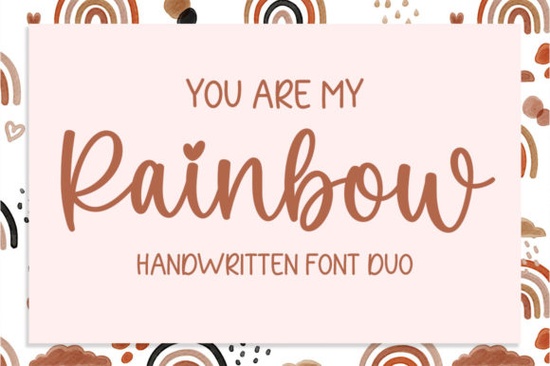
If you’ve been searching for a pair of fonts that feel playful but still polished, the You Are My Rainbow set might be exactly what your next project needs. Designed to work together or on their own, these two fonts bring a cheerful, handcrafted vibe that’s perfect for greeting cards, nursery decor, t-shirts, or even wedding invitations with a soft, personal touch.
What makes this duo special is how naturally they complement each other. One font leans into gentle script lettering with smooth curves, while the other offers a slightly bolder companion ideal for pairing headlines with body text or layering in SVG designs. You don’t need to be a pro designer to make them look great; their built-in harmony does most of the work for you.
Who should use these fonts?
If you run a small print-on-demand shop or sell handmade goods on Etsy, these fonts can help your products stand out without looking overdesigned. Think baby onesies with sweet phrases, canvas tote bags with uplifting quotes, or wall art for nurseries and kids’ rooms. Teachers and parents also love using them for classroom posters or milestone cards.
Even if you’re just crafting for fun maybe making birthday banners or scrapbook pages the You Are My Rainbow fonts add warmth without being cutesy. They strike that rare balance between personality and professionalism, which is why they’re often compared to fonts like Chunky or Willow, though with a more modern, airy feel.
How do I pair them effectively?
Here’s a simple trick: use the thinner, more delicate style for longer phrases (“You are my sunshine after the storm”) and the thicker variant for emphasis (“Always.” or “Mine.”). This contrast creates visual rhythm without clashing.
- For digital use: Try layering both fonts in Canva or Photoshop with a slight offset it gives a hand-lettered effect that customers love.
- For physical crafts: Use one font for vinyl cutting and the other for heat transfer paper to add texture and depth.
- For branding: If you’re naming a new product line (think bath bombs, candles, or baby blankets), this font duo adds emotional appeal without sacrificing readability.
And if you’re already using fonts like Brown Carolina Duo or Hey Baby in your toolkit, you’ll find You Are My Rainbow slots right in they share that same friendly, approachable energy but with a slightly fresher silhouette.
Are there any limitations?
These fonts shine in short-form designs think quotes, names, labels, or social media graphics. They’re not built for long paragraphs or body text in books or blogs. That said, if your goal is to create something that feels heartfelt and handmade, that’s actually a strength, not a drawback.
What else pairs well with this style?
Some crafters also combine these fonts with minimalist illustrations (clouds, stars, rainbows) or pastel color palettes to enhance the gentle tone. A light watercolor wash behind the text? Even better.
A quick checklist before you start:
- Open your preferred design tool make sure it supports OpenType features if you want alternates.
- Start with a short phrase to test how the fonts interact.
- Adjust tracking or kerning slightly if letters feel too tight or loose.
Whether you’re making gifts, building a brand, or just playing around on a rainy afternoon, You Are My Rainbow gives you room to be expressive without needing advanced skills. Sometimes, the simplest tools make the biggest emotional impact and that’s exactly what this font duo delivers.